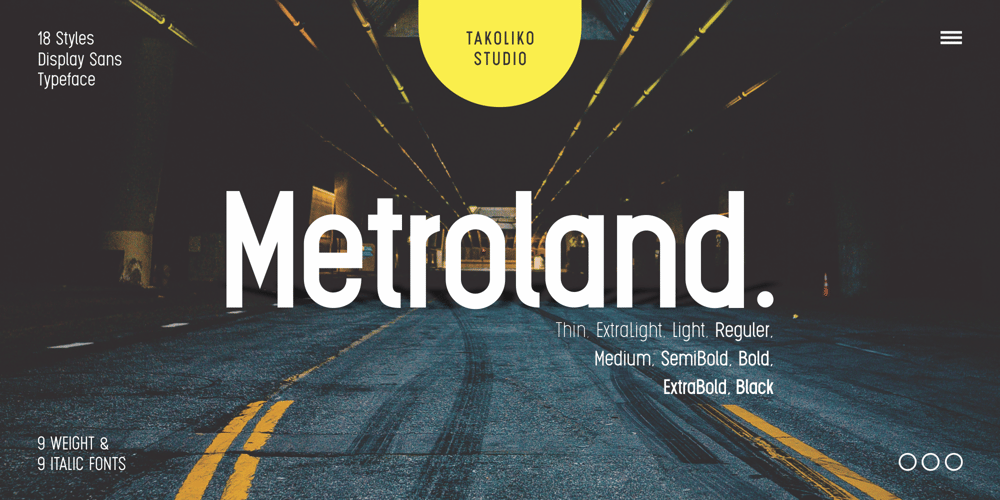
Metroland Font Family was designed by Deni Hidayat and published by takoliko. Metroland contains 18 styles and family package options. Metroland inspired by urban and modern life on a metropolis city. Metroland have a Subway vibe and a transportation theme that relate to our routine. Metroland is simple and modern sans serif display family font. it has a monoline geometric, and simple atmosphere. Metroland came with 9 weight and 9 italic fonts. It can easily be matched to an incredibly large set of projects, and good for communicating your brands.